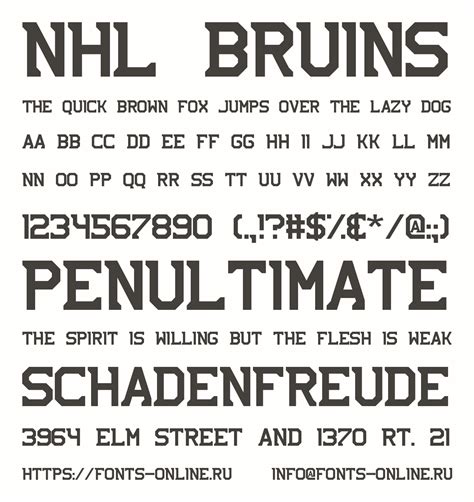
NHL Team Fonts: A Visual Guide
Hey hockey fans! Ever looked at a jersey or a logo and wondered about that awesome font? You know, the one that just screams ‘championship’ or ‘fierce competitor’? Well, you’re in luck, because today we’re diving deep into the cool world of NHL fonts . We’re talking about the typography that gives each team its unique visual identity, from the classic looks of Original Six teams to the modern, aggressive styles of newer franchises. It’s more than just letters, guys; it’s about history, pride, and that unmistakable hockey spirit etched into every character. So, grab your favorite team’s scarf, settle in, and let’s explore the fonts that make our favorite NHL teams instantly recognizable.
The History and Evolution of NHL Team Fonts
When we talk about NHL fonts , we’re really talking about a visual language that has evolved alongside the game itself. Think back to the early days of hockey. Logos and lettering were often simpler, reflecting the era’s design sensibilities and the technology available for printing and embroidery. Teams like the Montreal Canadiens and Toronto Maple Leafs, with their rich histories, often retain fonts that harken back to those traditional styles. These fonts are typically classic, bold, and easily legible, designed to make a statement without unnecessary frills. They convey a sense of heritage and enduring strength, much like the franchises themselves. Then, as the league expanded and modern design trends emerged, so did new approaches to team typography. Teams established in the latter half of the 20th century and into the 21st century often adopted fonts that were more dynamic, angular, or even futuristic. These newer NHL fonts aimed to capture a sense of speed, power, and a forward-thinking attitude. Look at teams like the Vegas Golden Knights or the Seattle Kraken; their fonts are designed to be modern, edgy, and to embody the spirit of their respective cities and expansion eras. The evolution isn’t just about aesthetics, though. It’s also about practicality. Fonts need to work across a variety of mediums – from the ice itself (on jerseys and helmets) to merchandise, websites, and broadcast graphics. This means they need to be scalable, reproducible, and impactful whether they’re tiny on a sticker or massive on a jumbotron. We’ve seen trends like serifs giving way to sans-serifs, and sharp, aggressive lines becoming more popular to reflect the physicality of the game. The NHL fonts we see today are a carefully curated blend of tradition, modernity, and functionality, each chosen to represent the unique brand and story of its team.
Iconic NHL Fonts and What They Represent
Let’s get down to the nitty-gritty, shall we? We’re talking about some seriously iconic NHL fonts that have become synonymous with their teams. Take the Boston Bruins’ classic blocky font – it’s strong, no-nonsense, and feels as tough as a Zdeno Chara slap shot. It’s a font that says, ‘We’re here to play hard, and we’re not backing down.’ Then you’ve got the Chicago Blackhawks’ iconic lettering, which often features a strong, slightly condensed serif font. It carries a sense of history and a certain gravitas, fitting for a team with such a storied past. It feels regal, almost like a crest, perfectly complementing their famous logo. For a completely different vibe, consider the Pittsburgh Penguins’ classic script font. It’s elegant, flowing, and has a touch of retro flair that feels both sophisticated and energetic. It evokes speed and grace, fitting for a team known for its skillful play. Moving to a more modern era, the Colorado Avalanche’s font is often sharp, angular, and dynamic. It uses strong lines and a distinct italicization to convey a sense of speed and the power of a storm. It’s the kind of font that makes you feel the rush of a breakaway. The NHL fonts for expansion teams are particularly interesting. The Vegas Golden Knights, for example, opted for a bold, slightly distressed sans-serif font that feels gritty and ready for battle, perfectly capturing the spirit of a city that thrives on excitement and resilience. Their font has an almost ‘wanted poster’ feel, fitting for a team that burst onto the scene and immediately made an impact. Each of these fonts isn’t just a collection of letters; it’s a carefully chosen element that contributes to the team’s overall brand identity. They represent the team’s history, playing style, city, and aspirations. They are the visual embodiment of team pride, and fans connect with them on a deep, emotional level. When you see that font, you instantly know who’s playing, and you feel that surge of team spirit. It’s pure magic!
Digging Deeper: The Art of Custom NHL Typography
Okay guys, so we’ve seen how some NHL fonts are instantly recognizable, but have you ever wondered about the custom aspect of it all? This is where things get really interesting. Most NHL teams don’t just grab a font off the shelf from their computer. Oh no, they commission custom typography designed specifically for them. This means a team of designers sits down, understands the team’s identity, its history, the city it represents, and the kind of feeling they want to evoke, and then they craft letters from scratch. It’s an art form, seriously! Think about the Detroit Red Wings’ classic lettering. While it has a timeless feel, the specifics of how each letter is shaped, the thickness of the lines, the subtle curves – these are all deliberate choices made to create that specific, iconic look. It’s not just a generic ‘block’ font; it’s the Red Wings font. The same goes for teams like the New York Rangers. Their lettering is bold and classic, but the way the ‘R’ is formed, or the spacing between letters, is all part of their unique visual signature. This custom approach allows teams to create truly unique fonts that are instantly identifiable and can’t be easily replicated. It’s about building a visual brand that is as strong and memorable as their performance on the ice. When a team introduces a new jersey or a new logo, the accompanying custom font is a massive part of that reveal. It has to align perfectly with the new aesthetic. Sometimes, teams might evolve their fonts over time, subtly tweaking them to feel more modern while still retaining core elements that fans recognize and love. This evolution is a delicate balance – you don’t want to alienate your fanbase by changing something they cherish, but you also want to stay relevant. The process of creating custom NHL fonts involves a deep understanding of graphic design principles, brand strategy, and, of course, a genuine appreciation for the sport. Designers often study historical typefaces, architectural styles, and even natural elements that might inspire a team’s identity. For example, a team representing a mountainous region might incorporate sharper, more jagged lines into their typography, while a coastal team might opt for something smoother and more fluid. It’s this meticulous attention to detail that makes each team’s font so special and contributes significantly to their overall visual identity and fan engagement. It’s a testament to the power of design in sports!
How to Find and Use NHL Fonts
Alright, so you’re probably thinking, ‘This is cool, but how can I get my hands on these awesome NHL fonts ?’ That’s a great question, and the answer is a bit nuanced, guys. For official team fonts, especially those used on current merchandise and jerseys, they are almost always proprietary. This means teams and the NHL own the copyright, and they are generally not available for public download or commercial use without licensing. Think of it like trying to get the official team logo – it’s protected intellectual property. However, that doesn’t mean you can’t find fonts inspired by NHL styles, or that are very similar to them. Many talented font designers create ‘fan-made’ or ‘inspired’ versions of popular NHL fonts . You can often find these on various font websites, sometimes for free for personal use, or for a small fee for commercial projects. A quick search on sites like DaFont, FontSquirrel, or MyFonts using terms like ‘[Team Name] font,’ ‘[Team Name] style font,’ or ‘hockey jersey font’ can yield some great results. Be sure to check the licensing terms for any font you download – ‘personal use only’ means you can’t use it for a business logo or anything you plan to sell. Now, if you’re a graphic designer working on a fan project, a personal website, or even a licensed product (which is a whole other ballgame requiring NHL approval and fees), understanding the nuances of these fonts is key. You’ll want to replicate the feel, the weight, and the character of the original font as closely as possible. Pay attention to the thickness of the strokes, the sharpness of the corners, the serifs (or lack thereof), and the overall spacing. Sometimes, the best approach is to study high-resolution images of official team jerseys or logos and try to recreate the lettering yourself or find a designer who can. When it comes to using these fonts, whether they’re official or inspired, always be mindful of copyright and trademark laws. Using official team fonts without permission for commercial purposes can lead to serious legal trouble. But for personal enjoyment – like creating fan art, customizing your own gear, or designing a fun, non-commercial social media graphic – exploring the world of NHL fonts is a fantastic way to show your team spirit and appreciate the design behind the game!
The Future of NHL Typography
Looking ahead, the future of NHL typography is bound to be as dynamic and exciting as the game itself. We’re already seeing a trend towards more minimalist and clean designs across many sports leagues, and hockey is no exception. This means we might see some teams opting for even simpler, more refined fonts that prioritize readability and a sleek, modern aesthetic. Think clean lines, well-balanced proportions, and a focus on legibility across all platforms, from tiny app icons to massive arena screens. Technology will undoubtedly play a role too. With advancements in digital displays and augmented reality possibilities, we might see fonts that are interactive or have subtle animations incorporated into their design for broadcasts or in-arena entertainment. Imagine a jersey number that slightly glows or a team name that has a subtle shimmer effect – the possibilities are pretty wild! We could also see a continued emphasis on customization and personalization. As fan engagement becomes even more critical, teams might explore fonts that can be adapted or modified in subtle ways to resonate with specific fan bases or regional identities within a larger market. This could involve variations on existing fonts or entirely new typographic treatments that feel more local. Furthermore, as the league continues to attract a global audience, NHL fonts might need to adapt to be more universally understood and aesthetically appealing across different cultures. This doesn’t necessarily mean abandoning unique team identities, but rather ensuring the core typography is strong and accessible. The influence of streetwear and contemporary graphic design is also likely to continue shaping the look of sports typography. Expect to see bolder choices, perhaps more experimental letterforms, and a greater integration of type as a primary graphic element, not just a secondary one. Ultimately, the goal remains the same: to create typography that is instantly recognizable, emotionally resonant, and a powerful symbol of team pride. The NHL fonts of tomorrow will likely blend cutting-edge design with the enduring spirit of hockey, ensuring that every letter contributes to the unforgettable story of the game.